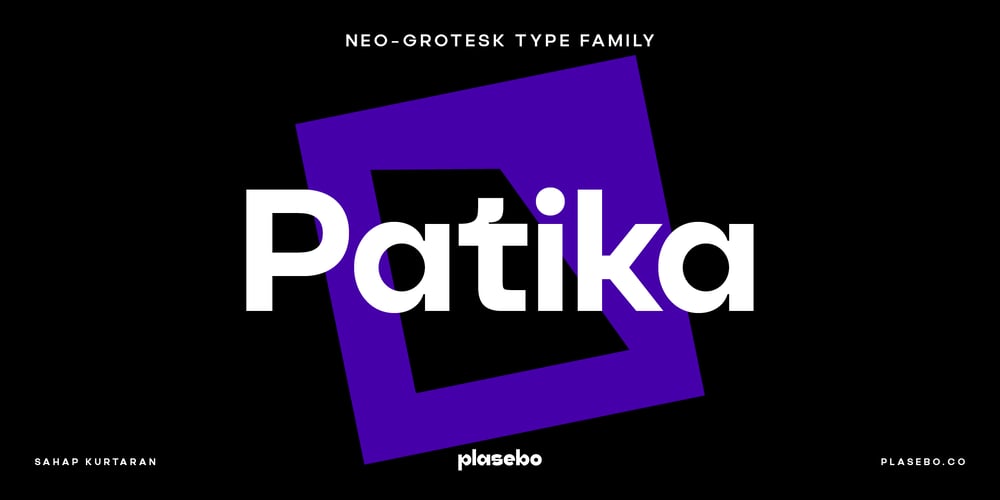
Patika Font Family was designed by Sahap Kurtaran and published by Plasebo Studio. Patika contains 8 styles and family package options. Patika Typeface is a contemporary neo-grotesque font that combines modern aesthetics with functional legibility. Inspired by the timeless elegance of classic typefaces such as Helvetica, Futura, and Avant Garde, Patika offers a fresh take on the genre with its unique blend of clean lines, balanced proportions, and subtle details.Designed with utmost care and precision, Patika Typeface achieves a harmonious balance between width and height, particularly in its lowercase letters, ensuring optimal legibility across various sizes and applications. Its versatile nature makes it an ideal choice for a wide range of typographic needs, from eye-catching headlines to extensive blocks of text.Equipped with a comprehensive set of OpenType features, including alternative glyphs, fractions, arrows, ligatures, and more, Patika offers designers an array of tools to enhance their typographic compositions and add a touch of uniqueness to their designs.